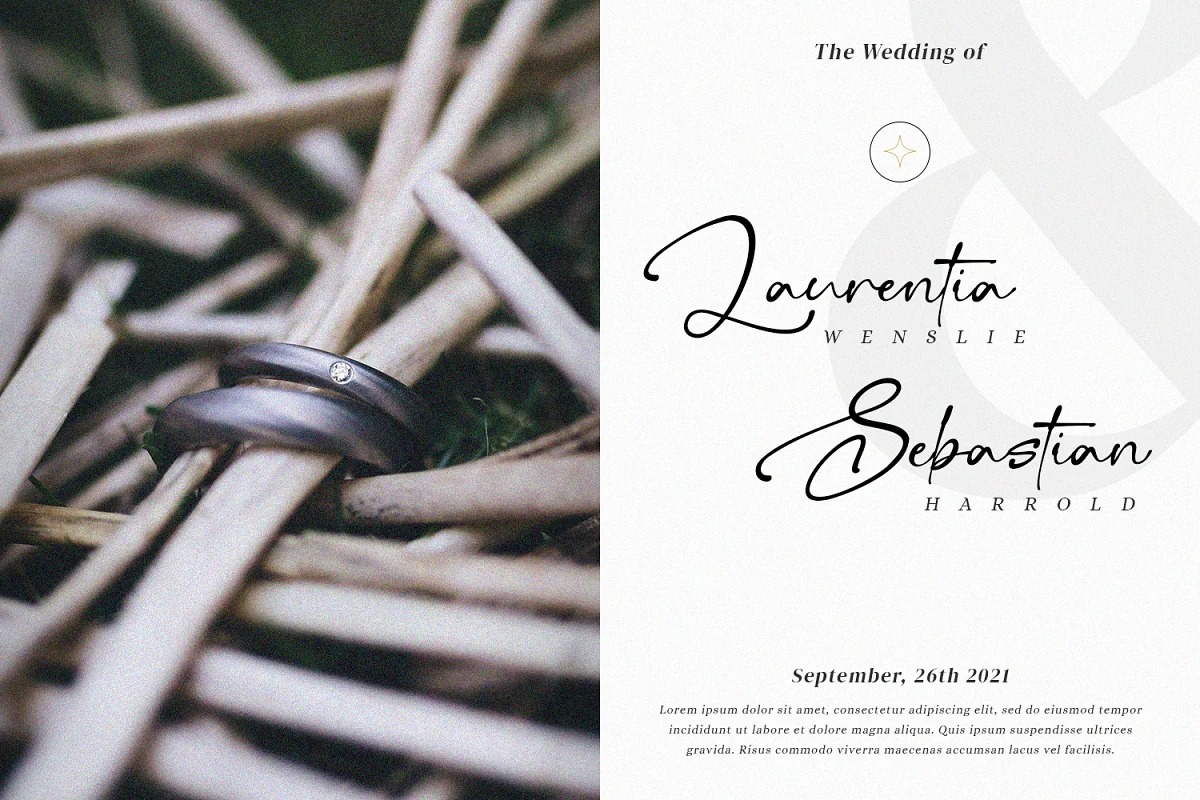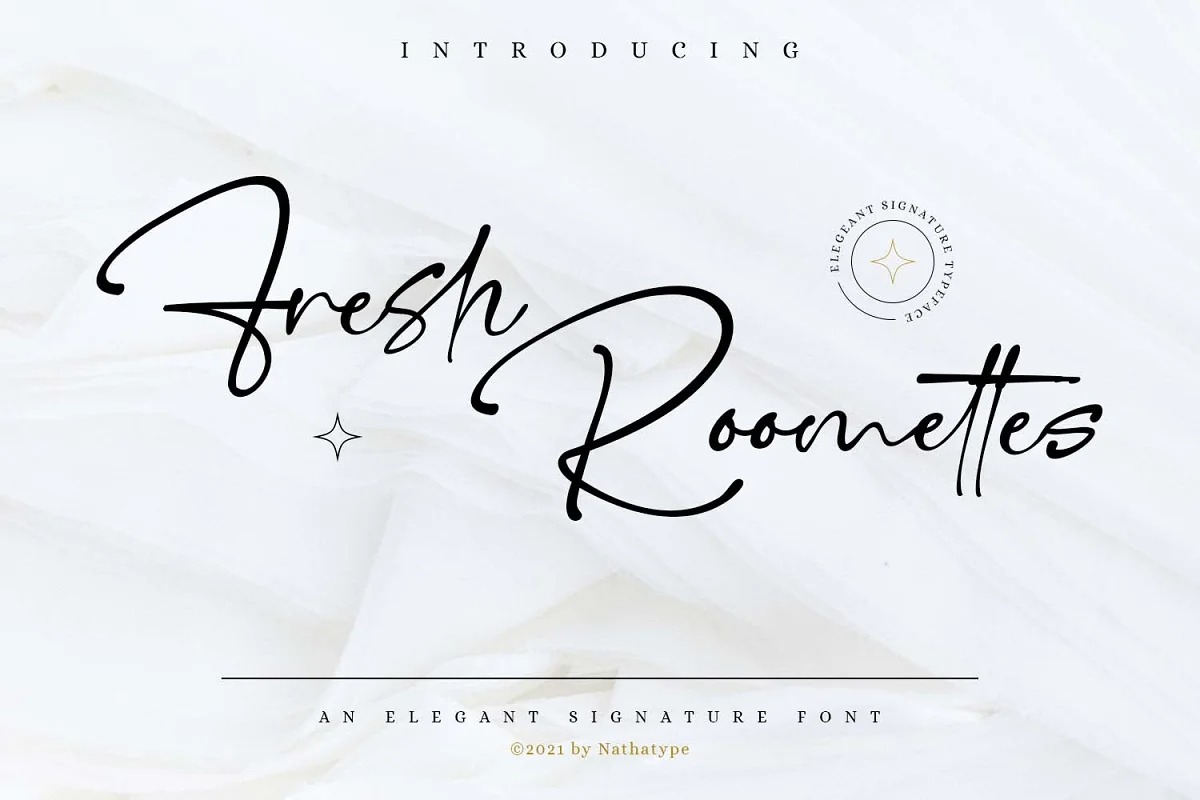
Fresh Roomettes Font
Fresh Roomettes Handwritten Font
This is a beautiful script typeface with an elegant handwritten style. Made from font designer named Din Studio. Every swash, stroke, and curve was created to entice happiness and elegance. Great choice for your logo, book cover, poster, t-shirt, branding, and advertisement needs.